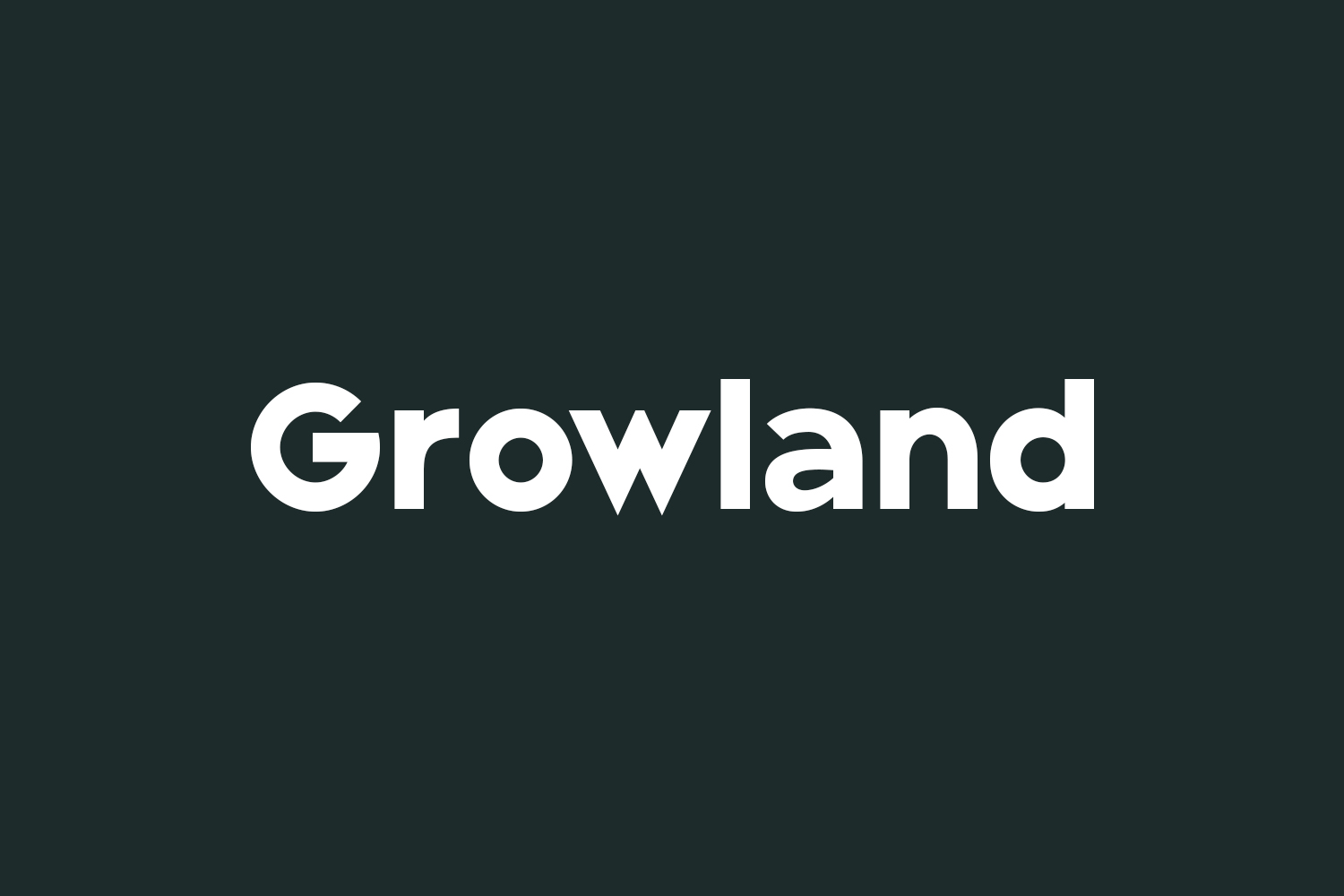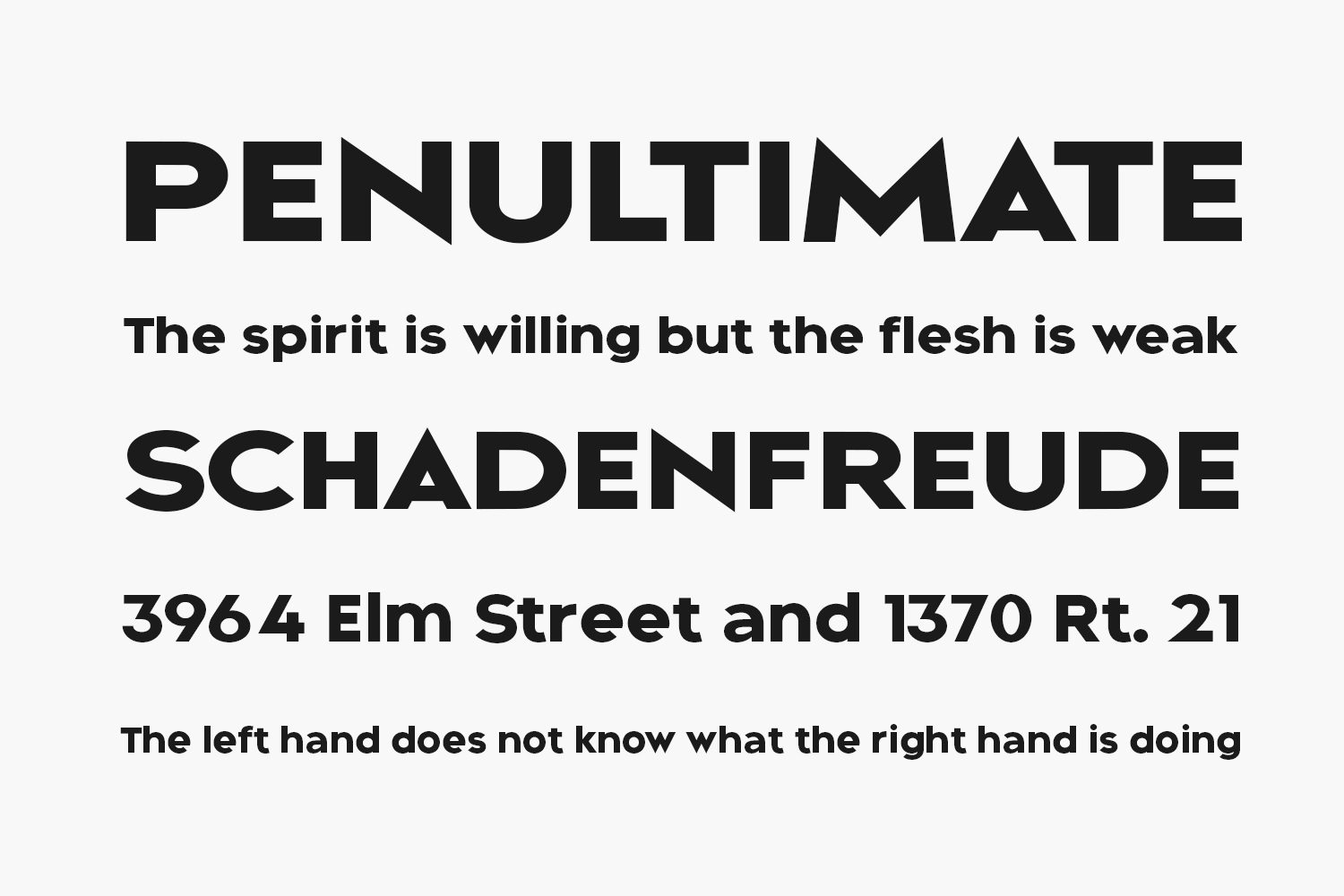
Growland Free Font Family is a cool, bold, and simple lettered display font. It reads as strong, confident, and dynamic and can add tons of assertive character to your designs. Growland Free Font Family was designed by Letternun and is free for personal use only. Please purchase the full version for commercial use.
Growland Bold The quick brown fox jumps over the lazy dog
Growland Black The quick brown fox jumps over the lazy dog